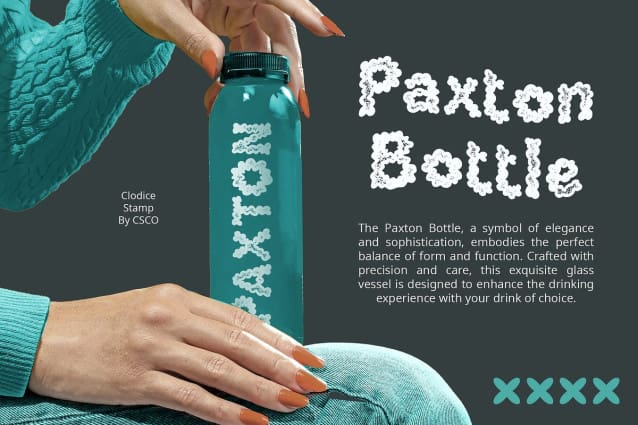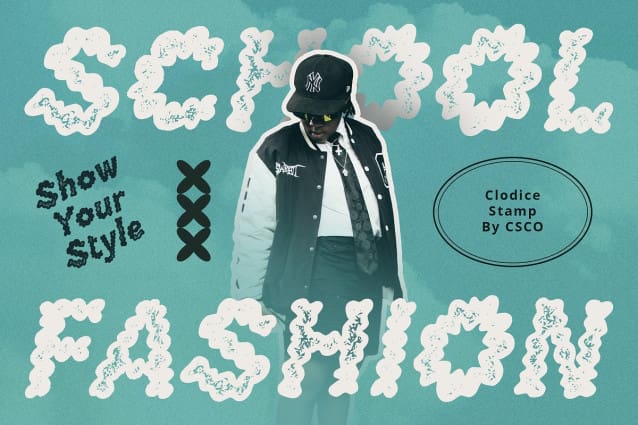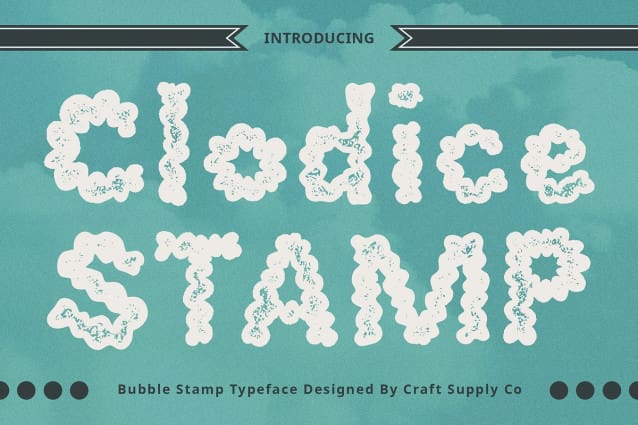
Clodice Stamp Font
Clodice Stamp Font: Nostalgic Bubble Typography. Vintage Inspired Bubble Form Clodice Stamp channels the whimsical charm of balloons and clouds with its bubble-shaped design. Inspired by retro aesthetics, its playful appearance evokes a sense of nostalgia.
Distinctive Stamp Effect With its unique stamp effect, This font adds a touch of authenticity to any vintage or retro-themed design. The stamped texture gives the font a nostalgic and handcrafted feel.
Versatile Retro Appeal Perfect for vintage-inspired projects, This font offers versatility in retro design display. From signage and posters to branding and packaging, its bubbly retro style adds a nostalgic flair.
Embrace Retro Nostalgia with Clodice Stamp Step back in time and embrace the nostalgia of retro design with This font. Its bubble-shaped form and stamped effect bring a vintage charm to any project, inviting viewers on a journey to the past.
Retro Bubble Typography with Stamp Effect This font captures the essence of retro design with its bubble-shaped form and distinctive stamp effect. Ideal for vintage-themed projects, it adds a touch of nostalgia and authenticity to any design endeavor.